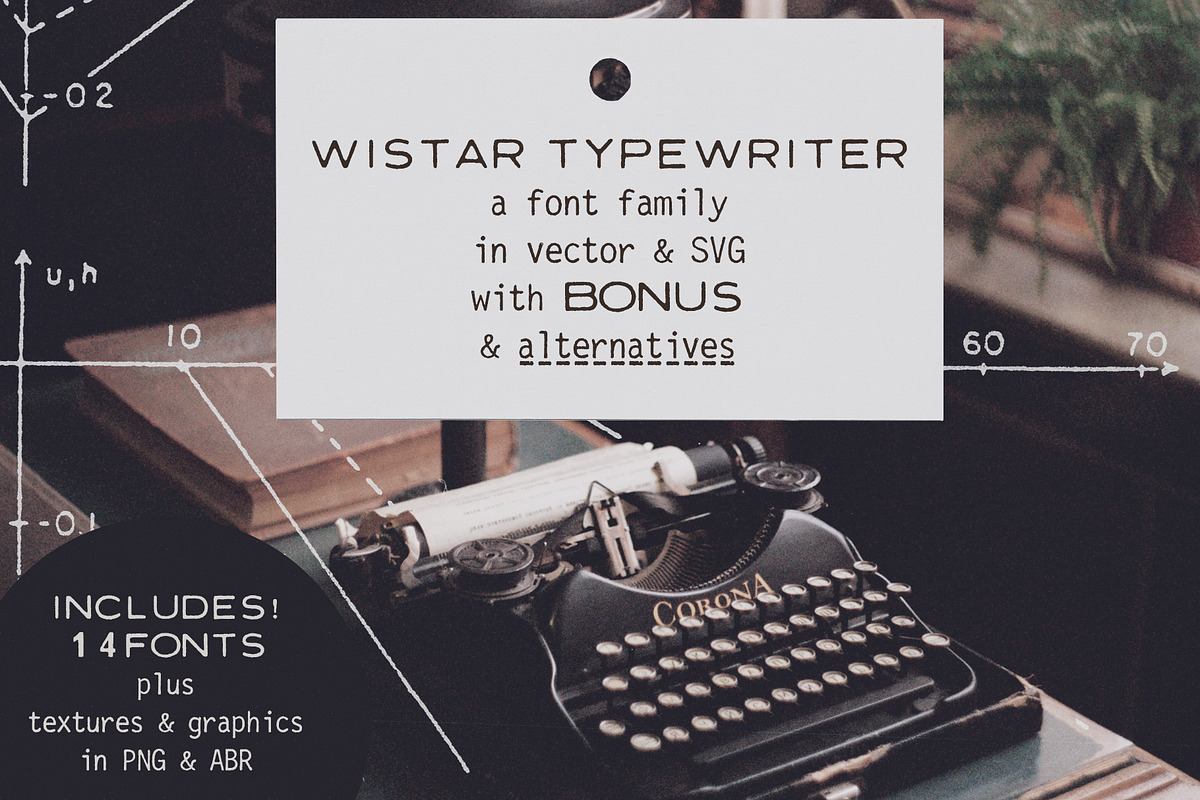
Wistar Typewriter SVG Font Family Free Download brings the nostalgic charm of vintage typewriting into the modern design world. Featuring high-resolution textures and authentic letterpress-style imperfections, this font family is perfect for retro posters, editorial layouts, branding, stationery, and digital artwork with a handmade feel. Each character captures the gritty detail of old-school typewriter ink for a truly realistic effect.
With multiple styles and a unique SVG format, Wistar offers unmatched depth and character in your typography. Whether you're aiming for a literary vibe, a rustic aesthetic, or just something that feels tactile and expressive, this font family is your go-to.